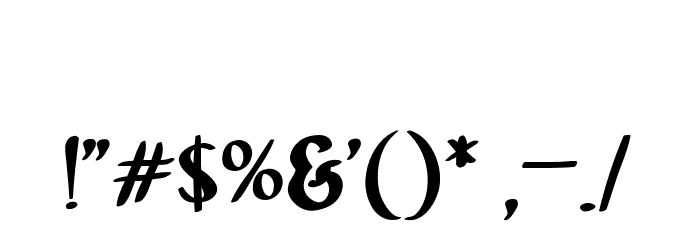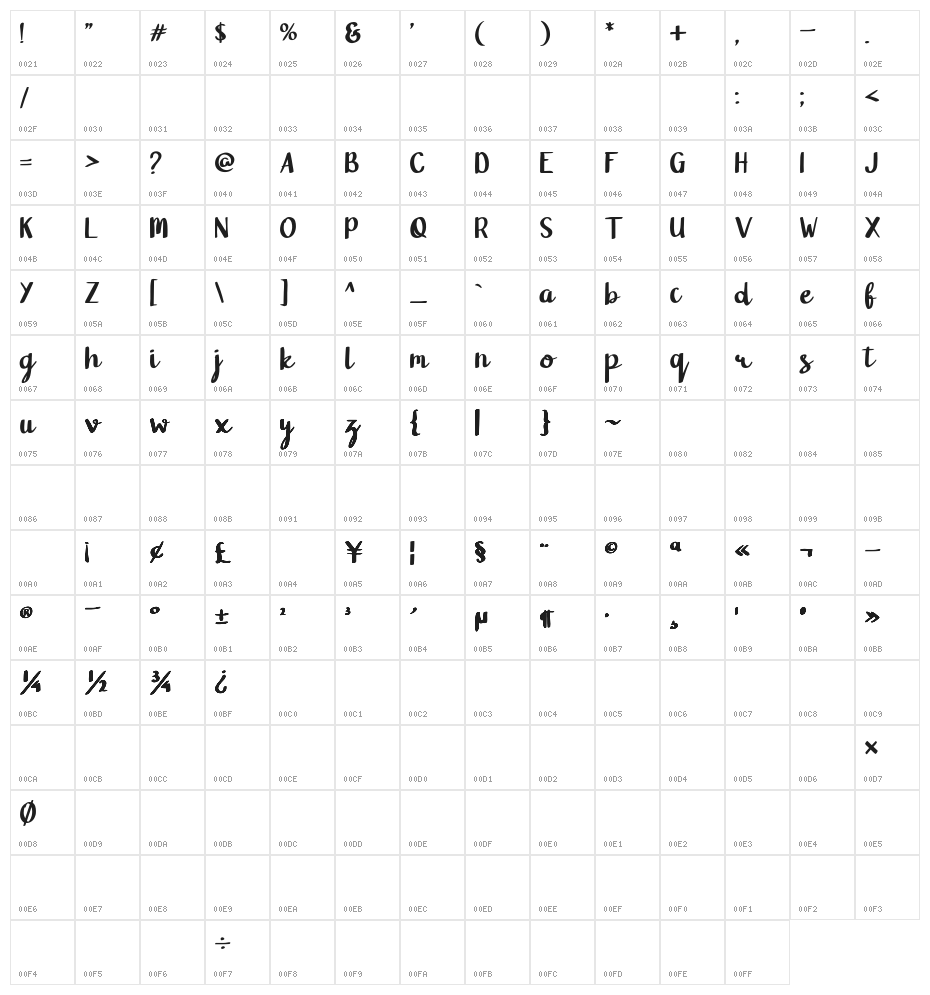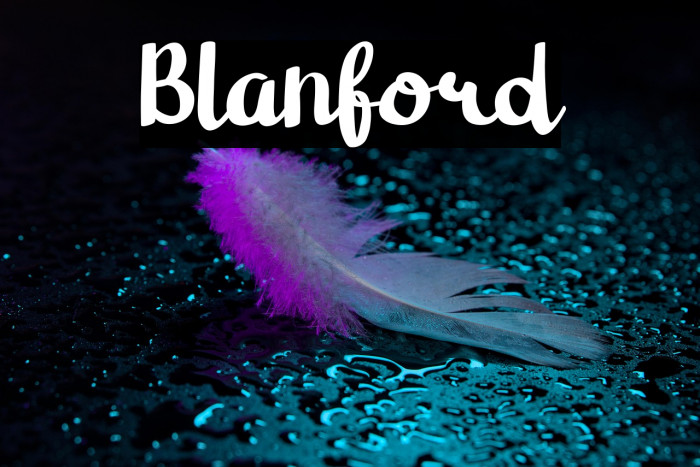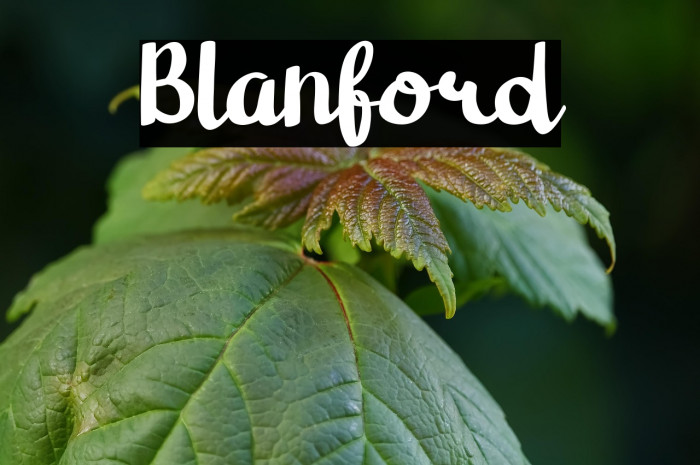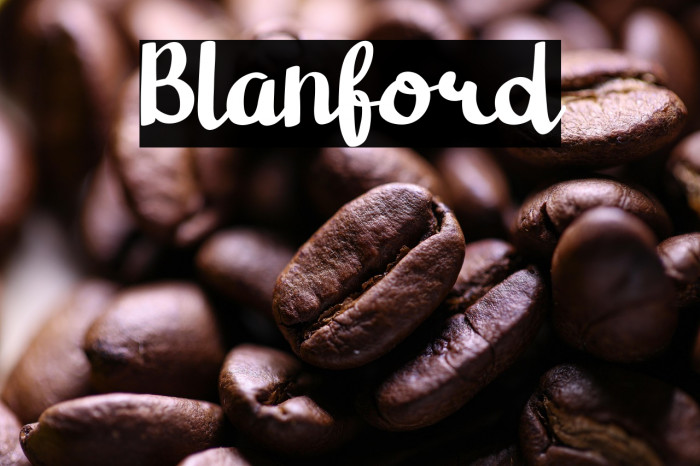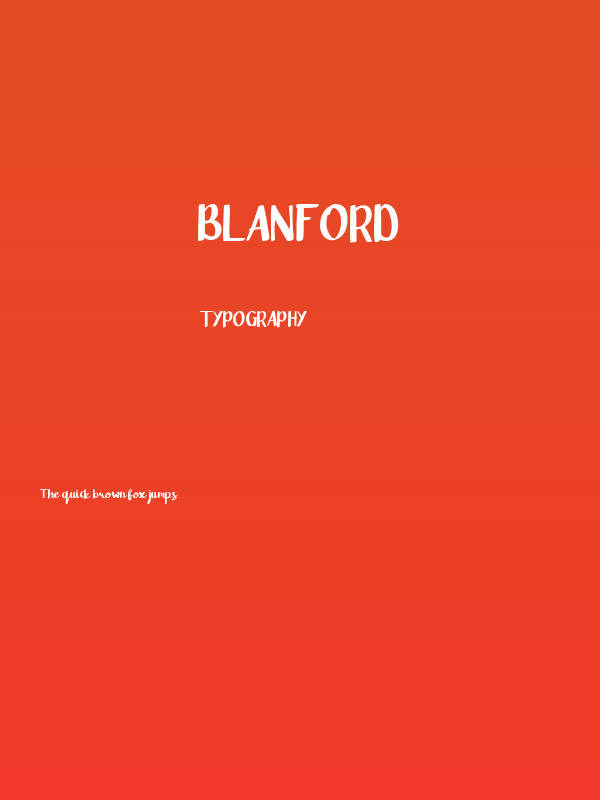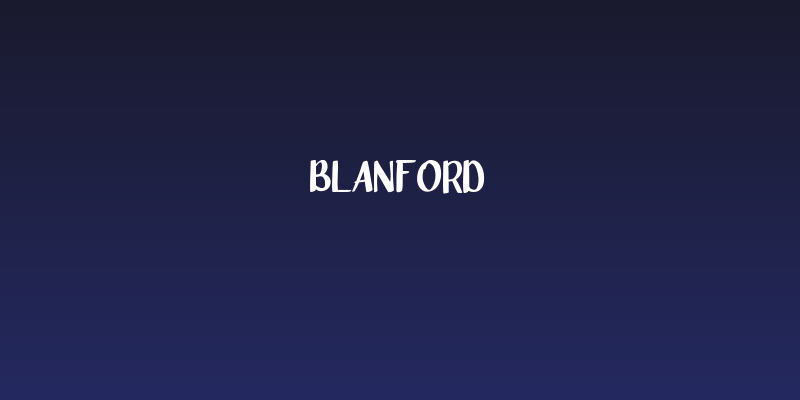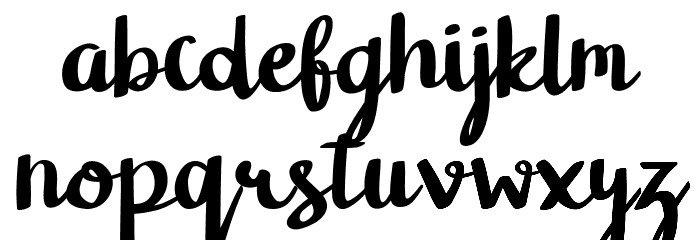
Blanford Font
Blanford Description
This font features a playful and dynamic script style with a bold presence. The uppercase letters are tall and slightly condensed, giving a strong vertical emphasis, while the lowercase letters exhibit a flowing, cursive quality. The strokes are thick and consistent, providing a robust and confident appearance. The characters are well-spaced, allowing for easy readability despite the decorative nature. The special characters maintain the same bold and playful style, ensuring consistency across all glyphs. This font is ideal for projects that require a touch of elegance and creativity.